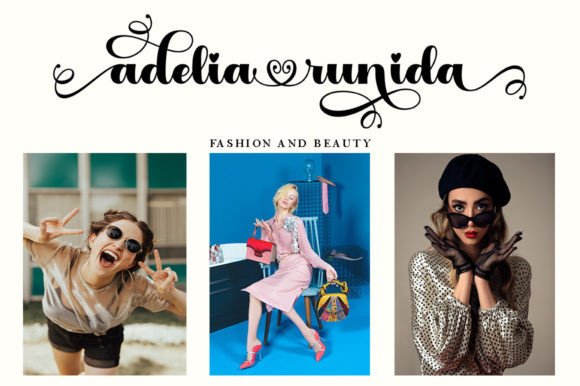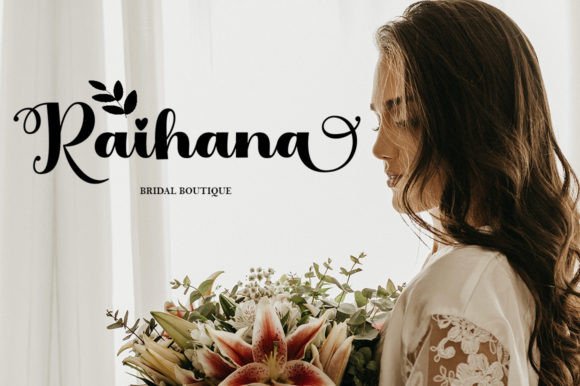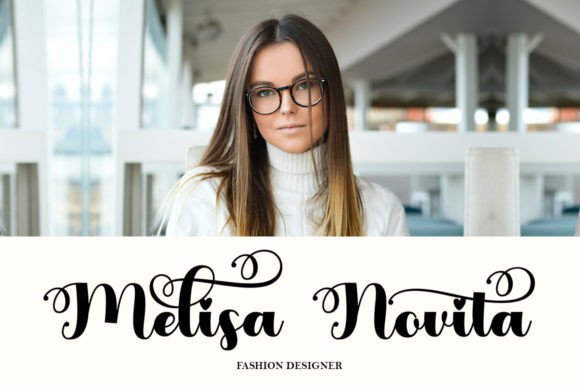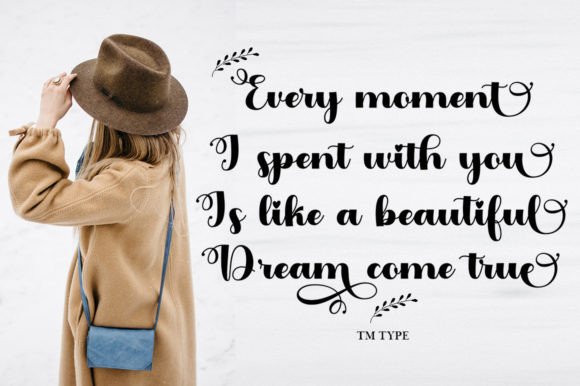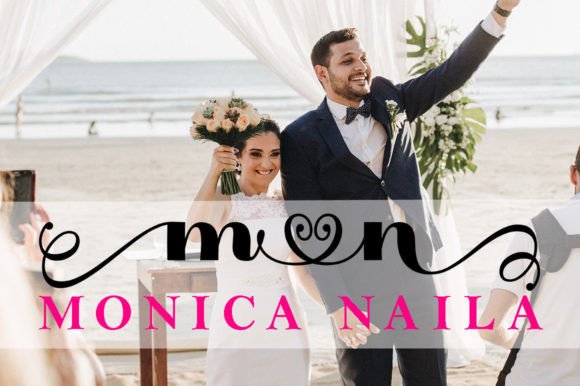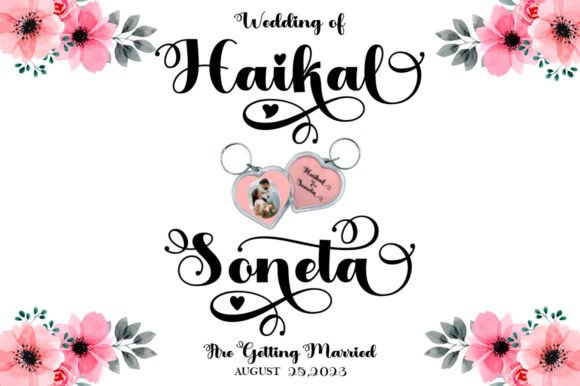
Unlocking the Art of Elegant Typography
Have you ever stared at a blank canvas, pencil in hand, waiting for the perfect script to flow onto the page? For many designers, that moment is the spark that sets their creative journey ablaze. And what better way to ignite that spark than with a font that exudes timeless elegance and sophistication?
Meet Baile Guneta Font, a script font designed to elevate your projects with its balanced and varied form. Inspired by classic calligraphy, this font is not too thin and not too thick, making it the perfect addition to any design. With its PUA encoding, accessing all glyphs and swashes is a breeze, giving you the freedom to unleash your creativity. Whether you’re a seasoned designer or just starting out, Baile Guneta Font is a valuable tool to enhance the beauty of your work.
Baile Guneta Font Key Features
- Unique Characteristics: Features a unique, hand-drawn design with intricate details and subtle texture, adding a touch of elegance to any text
Designer Review: Baile Guneta Font
I recently had the chance to work with the Baile Guneta Font, and I must say, it’s a unique addition to any design project. Here are my thoughts:
- ✨ Beautifully crafted connections between letters, giving it a sense of flow and cohesion.
- ✨ Unique and playful style that adds a touch of personality to any design.
- ✨ Wide range of weights and styles to choose from, making it versatile for various design needs.
- ⚠️ Limited support for some languages, which may limit its use in global design projects.
- ⚠️ Some letterforms may be difficult to read at small font sizes, which could impact readability.
- ⚠️ The font may not be suitable for very formal or professional designs, as its playful style may not fit the tone.
Overall, I think the Baile Guneta Font is a great choice for designers looking to add some personality to their work. While it has some limitations, its unique style and wide range of weights make it a versatile tool in the right contexts. I’d definitely consider using it again in the future.
Tips for Getting the Most Out of Baile Guneta Font
Use Baile Guneta Font for:
- Headings and titles to add a touch of elegance.
- Body text for a clean and modern look.
- Combining with other fonts to create a unique design.
Baile Guneta Font is suitable for:
- Designing business cards and brochures.
- Creating presentations and reports.
- Developing websites and mobile apps.
Alternatives to Baile Guneta Font
Playfair Display is a luxurious and elegant script font, perfect for creating a sophisticated and high-end look. It is ideal for use in titles, headings, and any other text where a touch of elegance is needed. Playfair Display has a more ornate and decorative feel compared to Baile Guneta Font, which has a more minimalist and modern aesthetic.
Great Vibes is a beautiful and stylish script font, great for use in creative and artistic projects. It has a more relaxed and casual feel compared to Baile Guneta Font, making it perfect for use in social media, advertising, and other digital media. Great Vibes is also more versatile and can be used in a variety of contexts, from fashion to food branding.
Carolyna Pro is a modern and elegant script font, perfect for use in high-end branding and design projects. It has a more refined and sophisticated feel compared to Baile Guneta Font, making it ideal for use in luxury fashion, beauty, and lifestyle branding. Carolyna Pro is also highly customizable, allowing designers to tailor the font to their specific needs.
Pacifico is a beautiful and elegant script font, perfect for use in creative and artistic projects. It has a more relaxed and casual feel compared to Baile Guneta Font, making it perfect for use in social media, advertising, and other digital media. Pacifico is also highly versatile and can be used in a variety of contexts, from fashion to food branding.